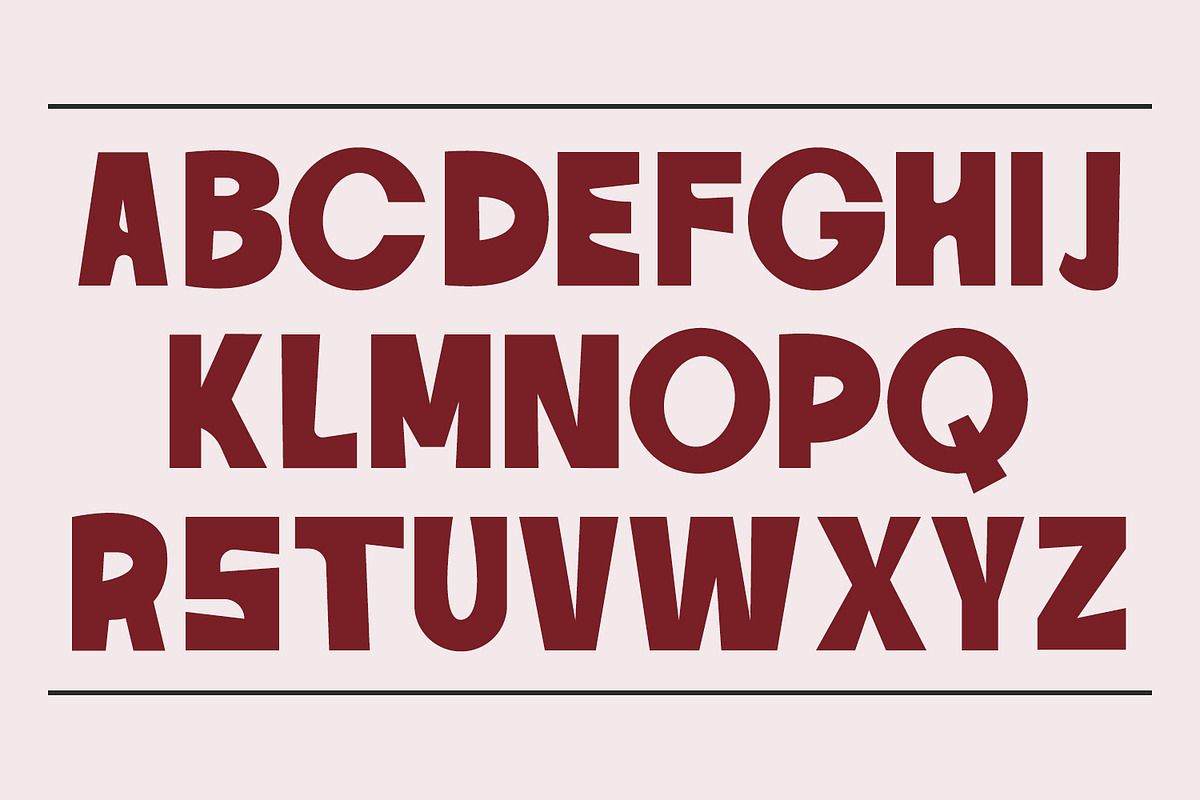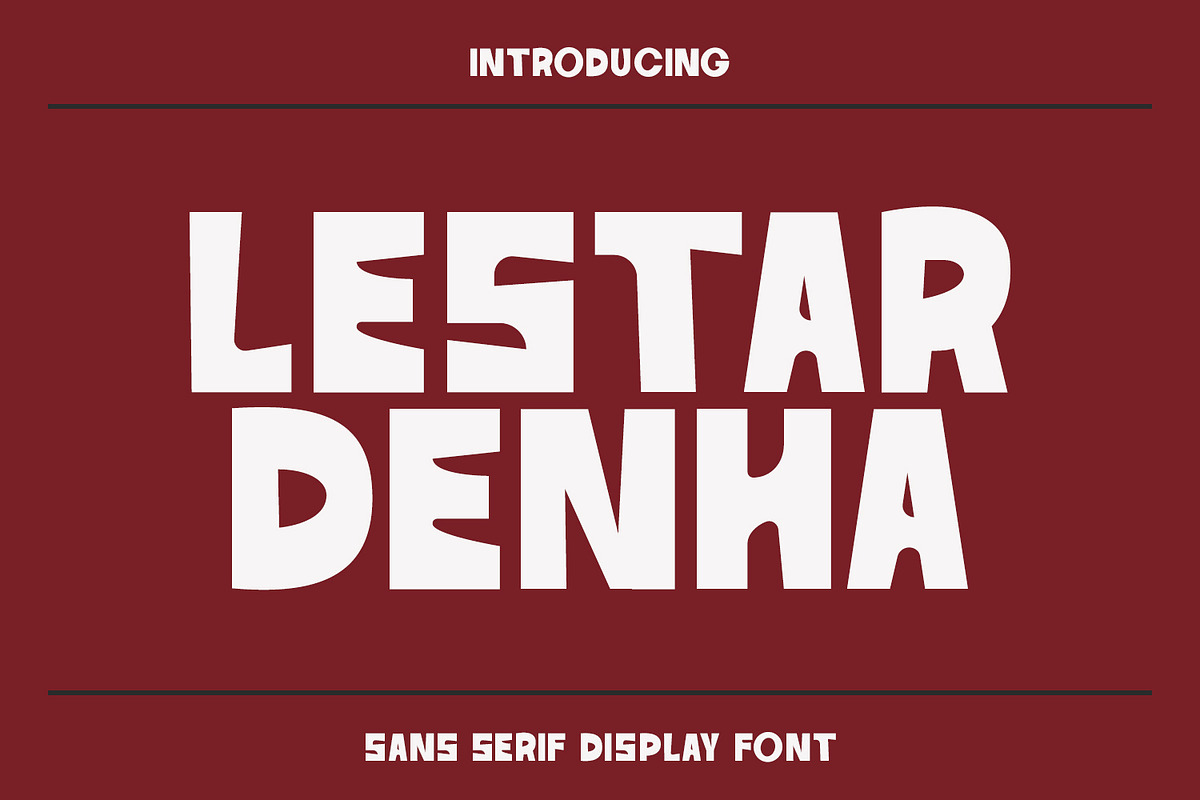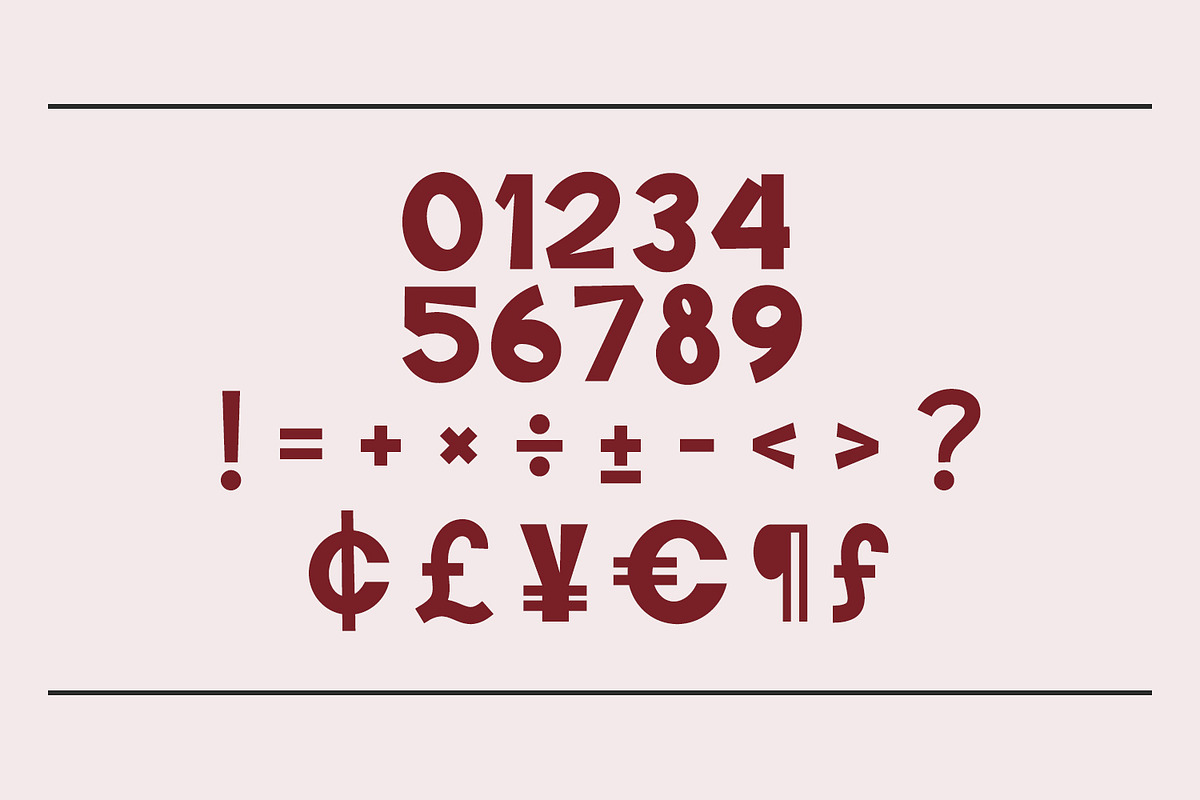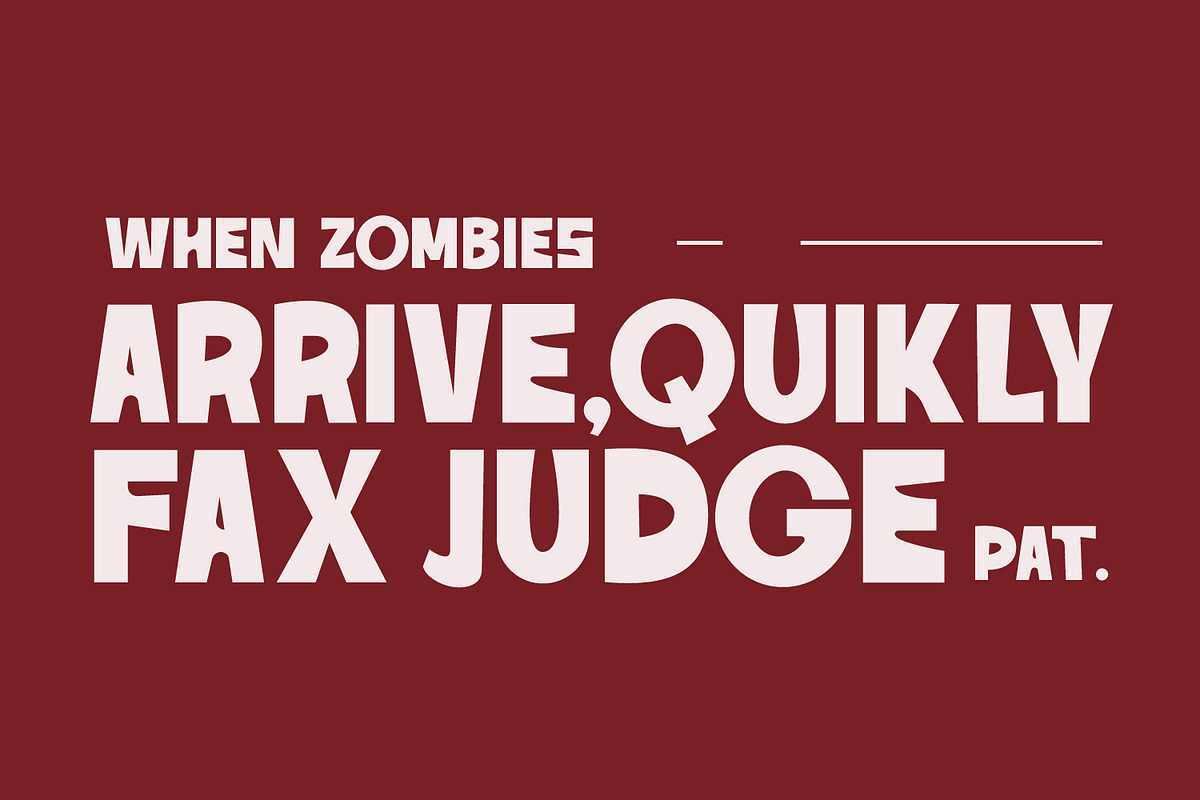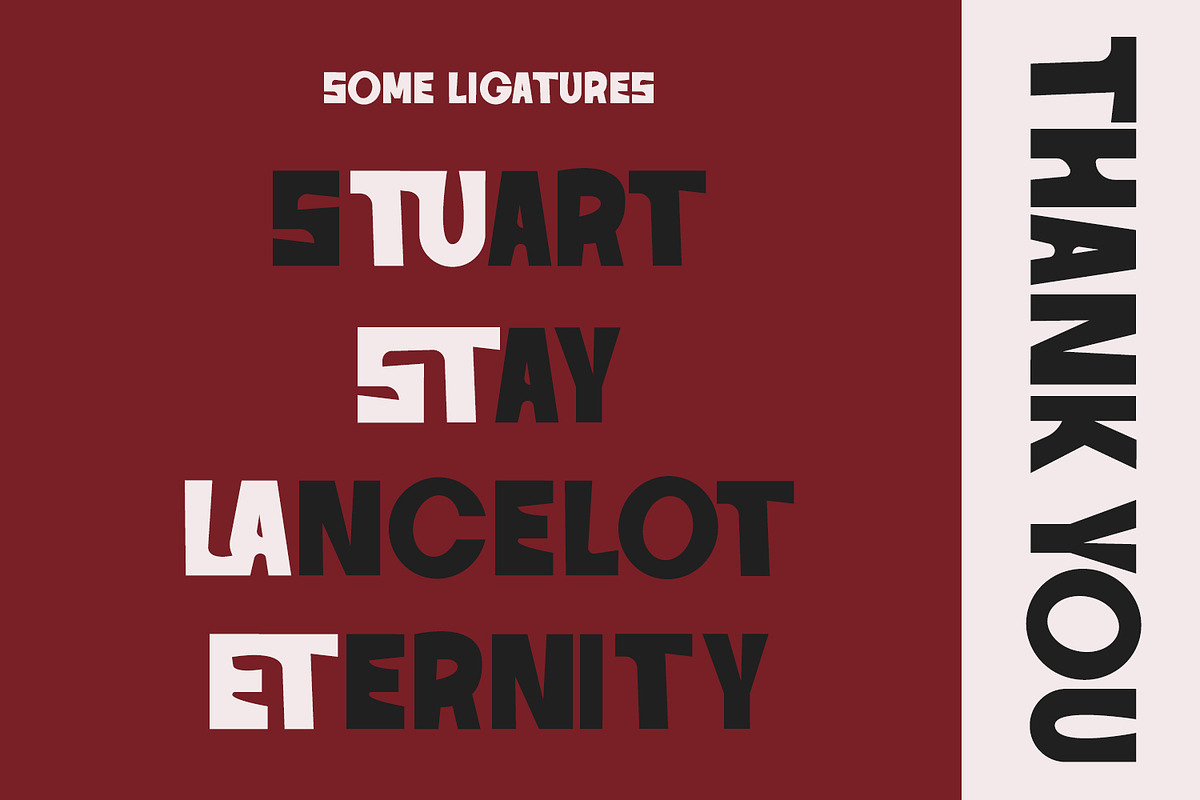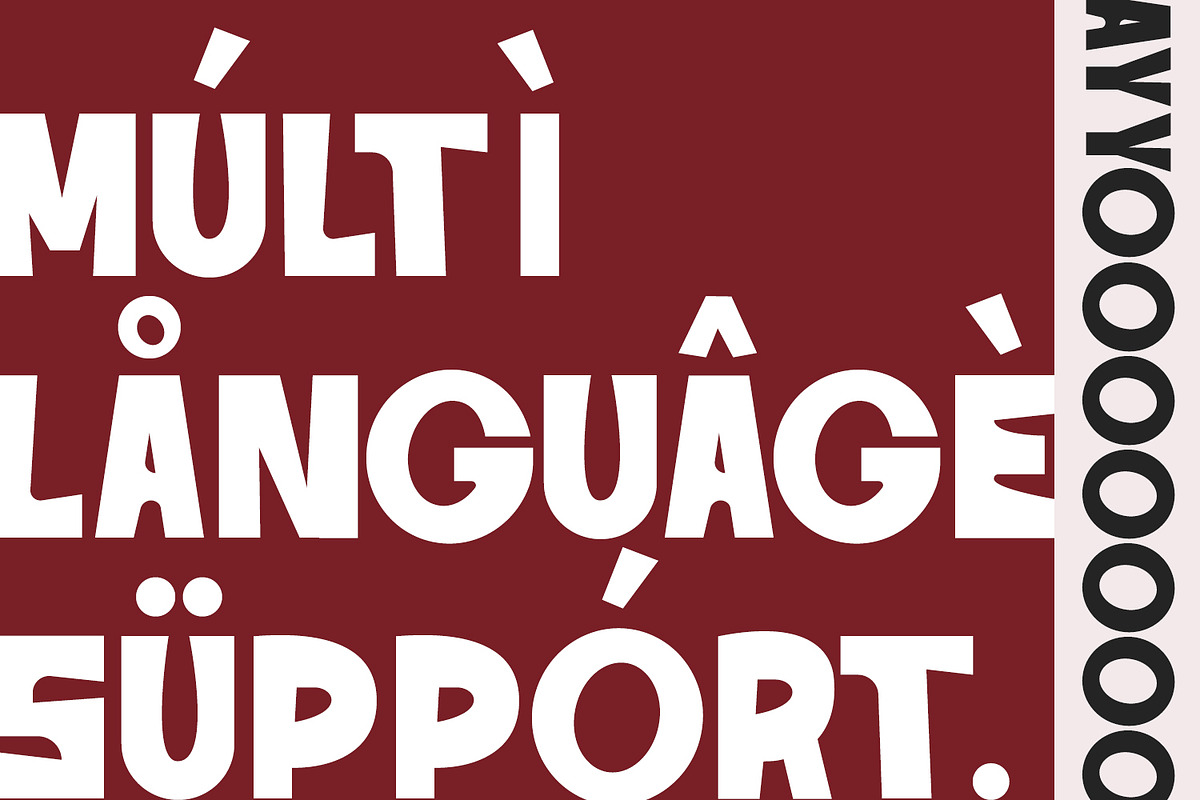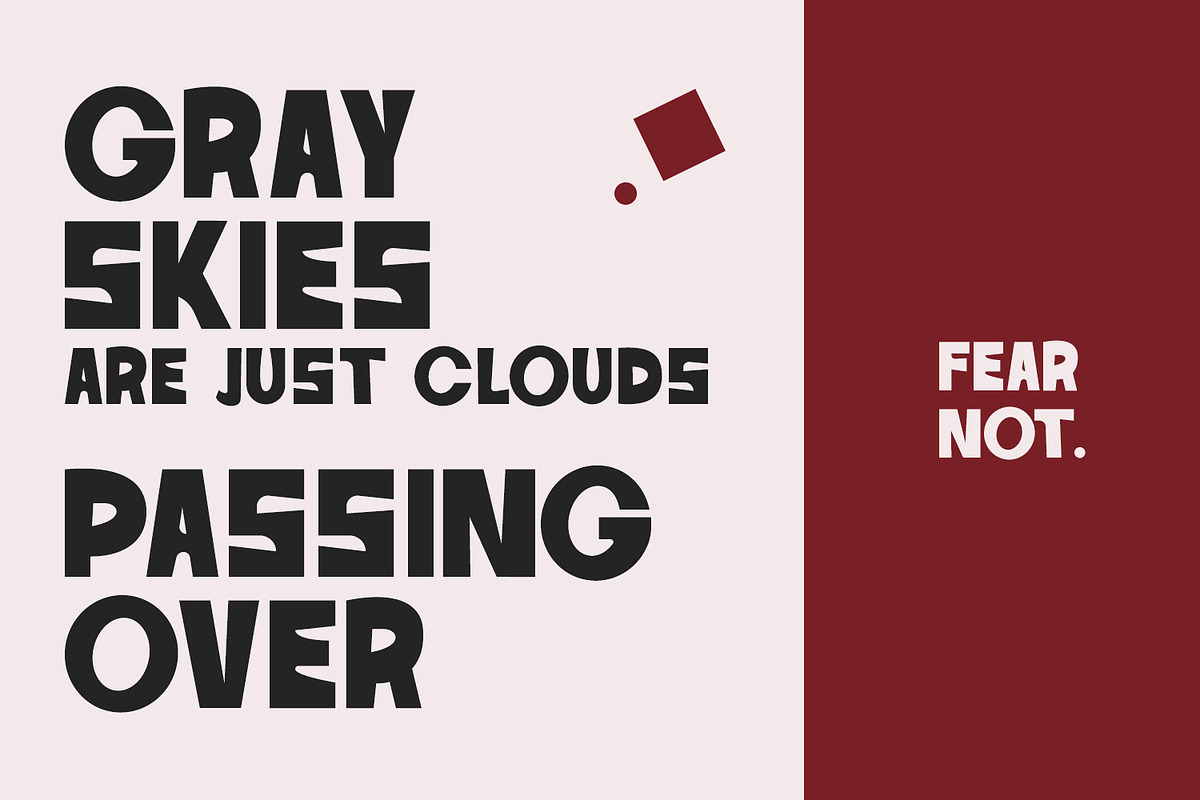
Lestar Denha Sans Serif Display Font
Lestar Denha is an all caps experimental sans display font. Bold stroke, fun character with a bit of ligatures. To give you an extra creative work. Lestar Denha font support multilingual more than 100+ language. This font is good for logo design, Social media, Movie Titles, Books Titles, a short text even a long text letter and good for your secondary text font with script or serif. Make a stunning work with Lestar Denha font.